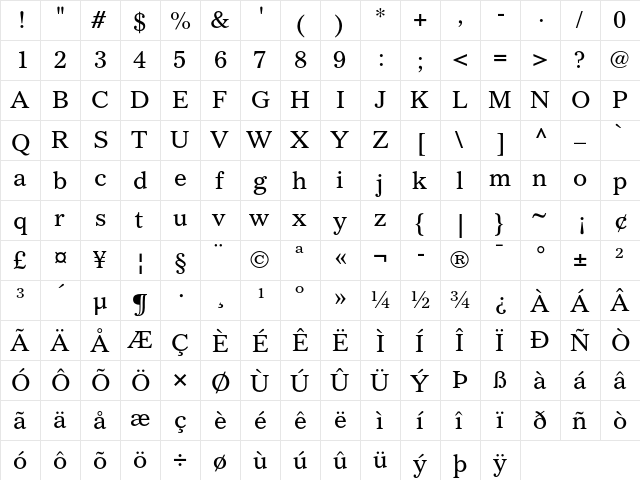
Gazette LH Roman
Design Context for Gazette LH Typeface
Gazette LH is a composed and adaptable typeface that performs quietly and consistently across a wide range of design contexts.